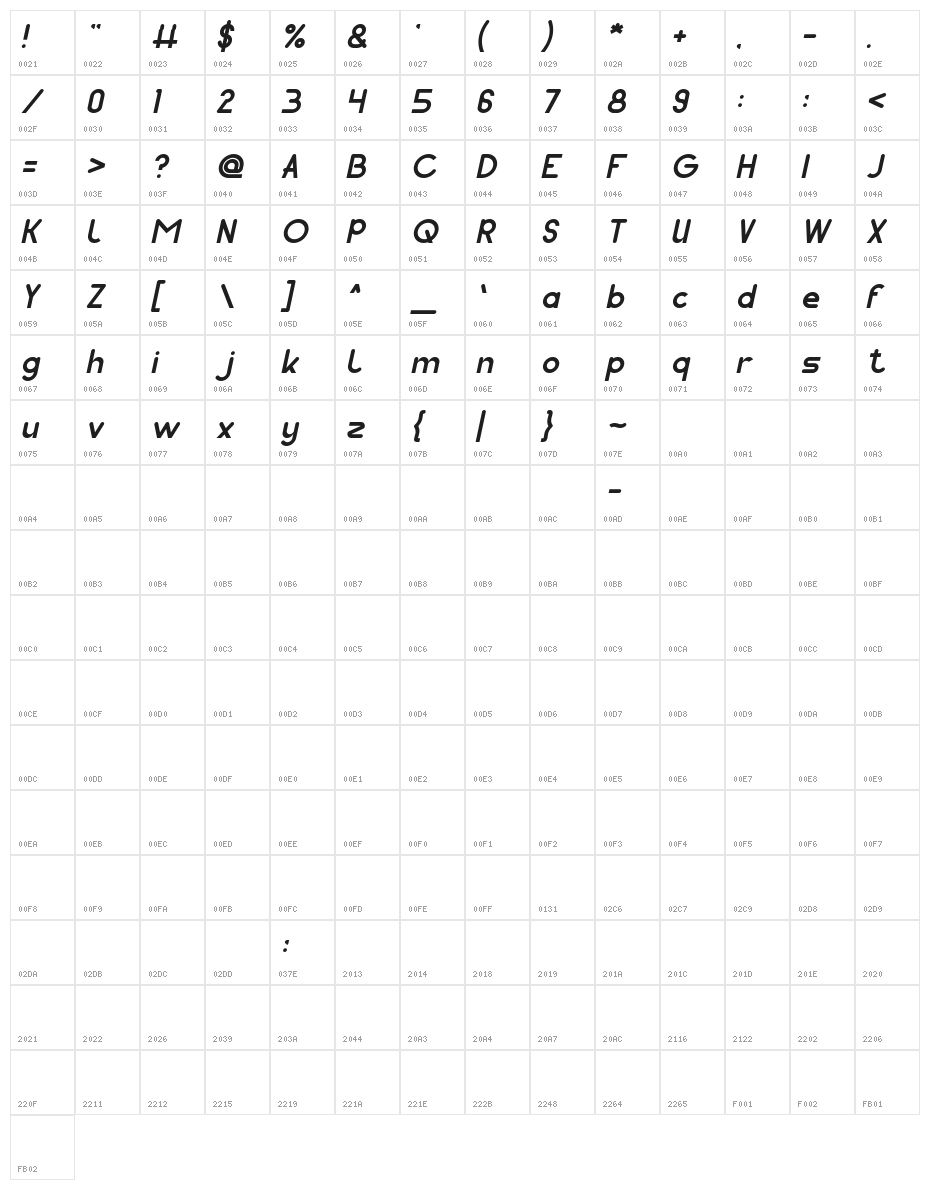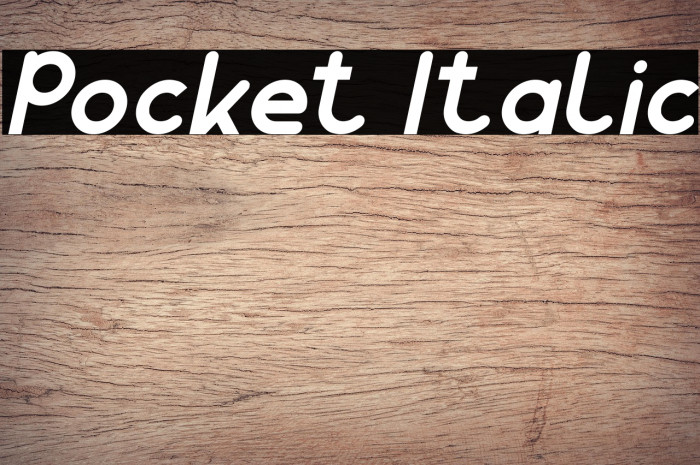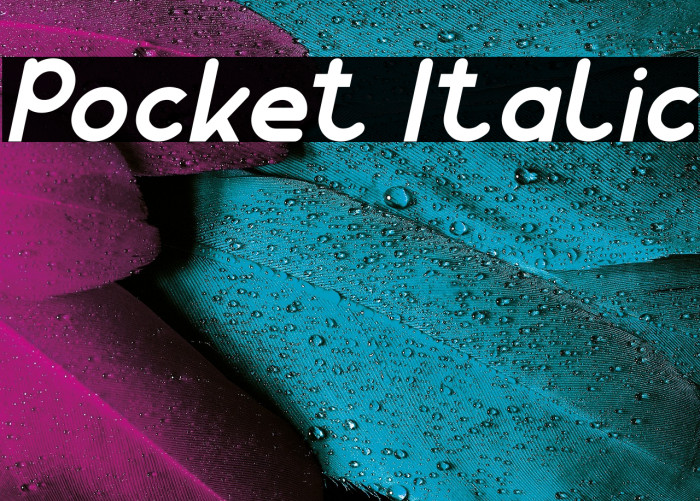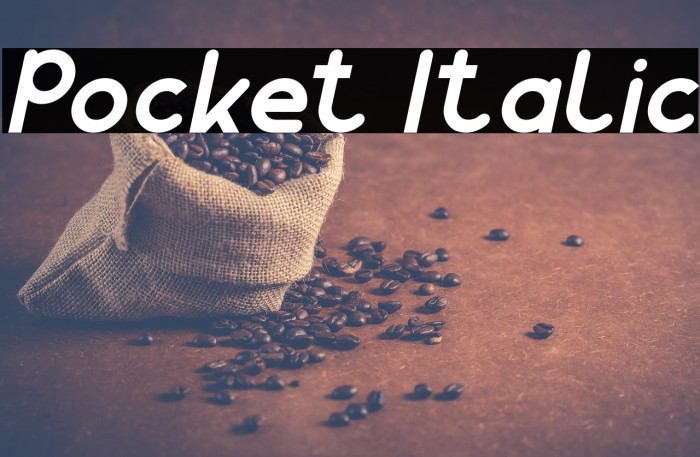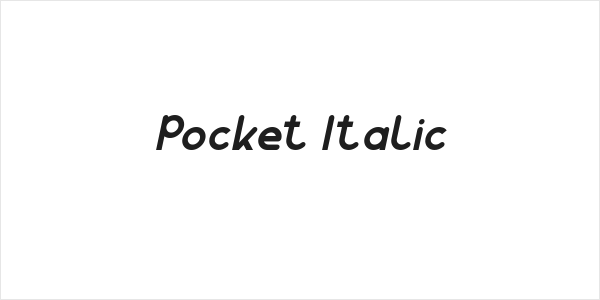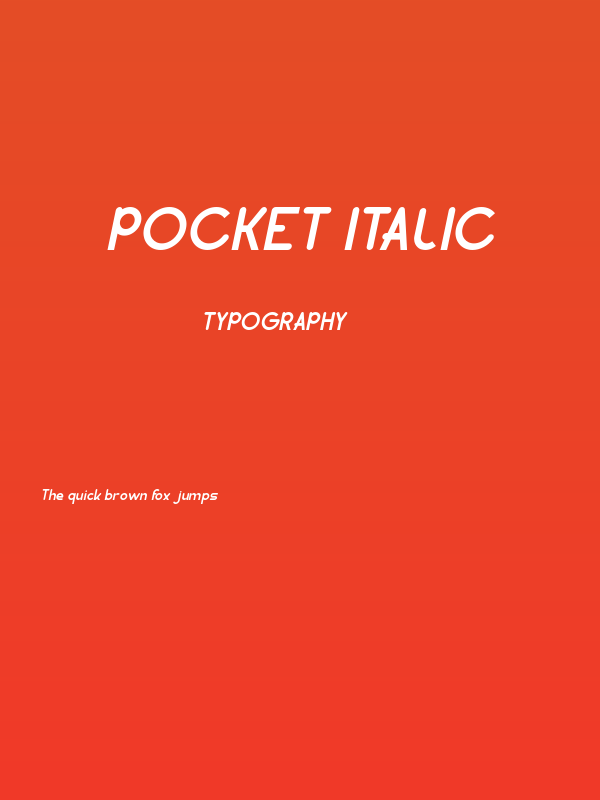
Pocket Italic Font
Pocket Italic Description
This font features a sleek and modern italic style with smooth curves and a slightly forward-leaning posture, giving it a dynamic and energetic appearance. The characters are well-proportioned with a consistent stroke width, providing a clean and uniform look. The lowercase letters maintain a friendly and approachable feel, while the uppercase letters exhibit a bold presence. The numerals are clear and easily distinguishable, making them suitable for various applications. Special characters are designed with the same attention to detail, ensuring they integrate seamlessly with the rest of the font.
| Use Case | Logos, Headlines, Digital content |
| Proposed Projects | Ideal for branding, advertising, and digital content where a modern and energetic feel is desired. |